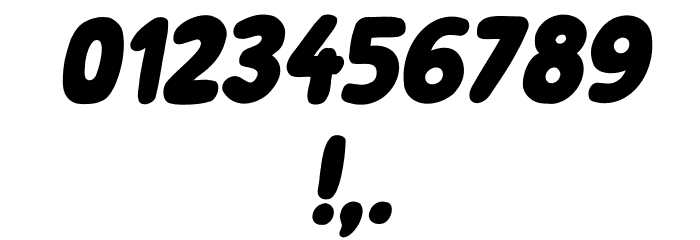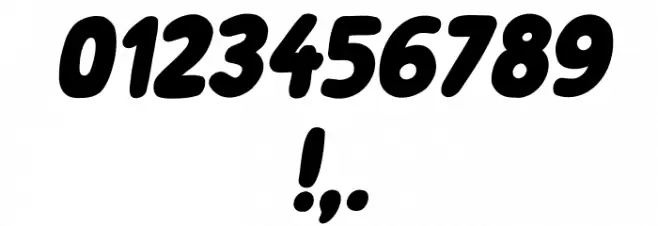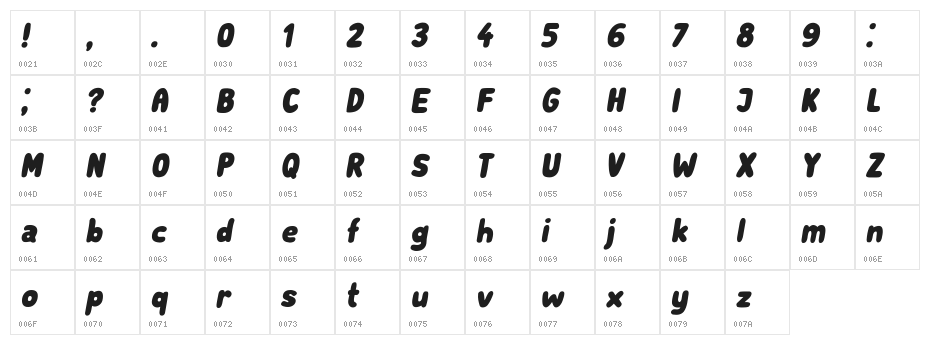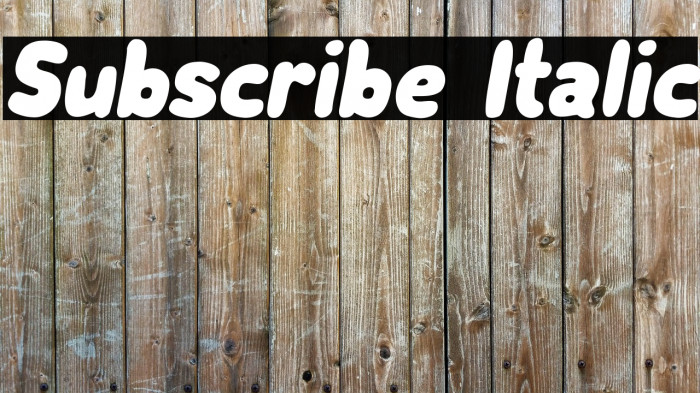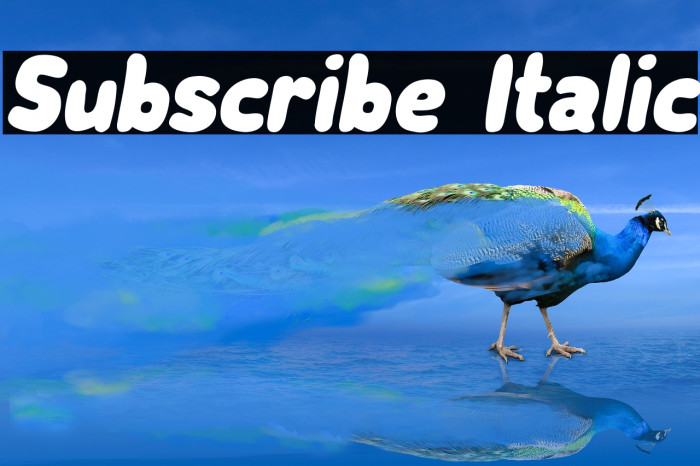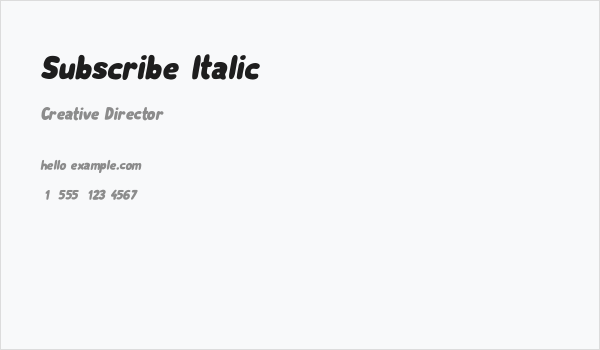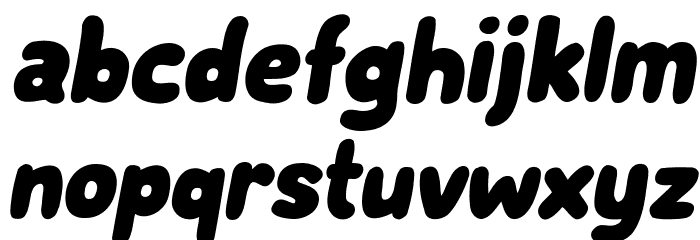
Subscribe Italic Font
Subscribe Italic Description
This font features a playful and bold style with rounded edges and a slightly italicized slant, giving it a dynamic and friendly appearance. The characters are thick and substantial, providing a strong visual impact. The rounded forms and consistent stroke weight create a cohesive and approachable look, making it suitable for informal and fun designs. The font maintains a uniform thickness throughout, ensuring readability while adding a touch of whimsy. Its bold nature makes it stand out, yet the rounded edges soften its overall presence, making it versatile for various applications.
| Proposed Projects | Ideal for children's books, playful branding, posters, and social media graphics. |